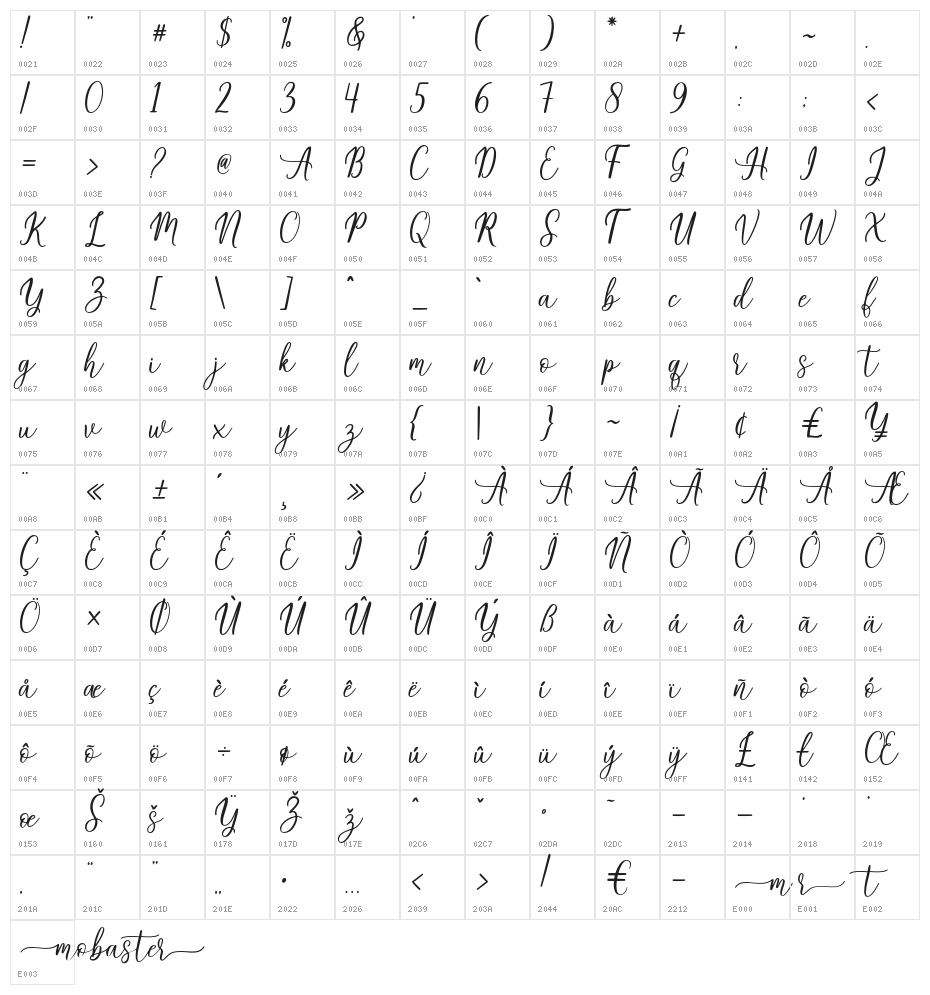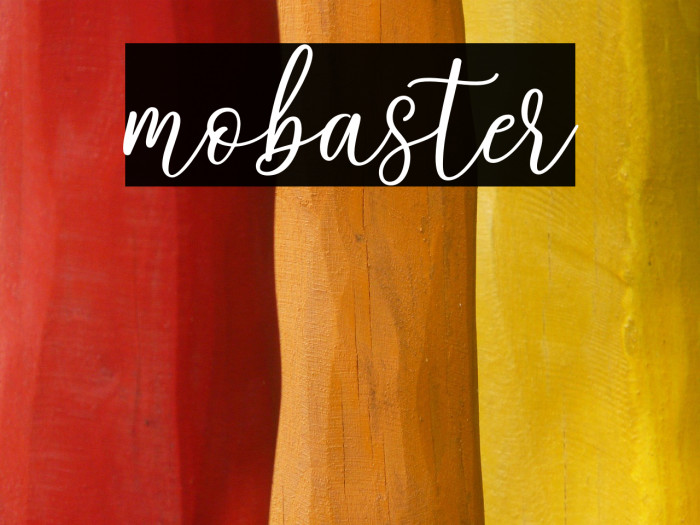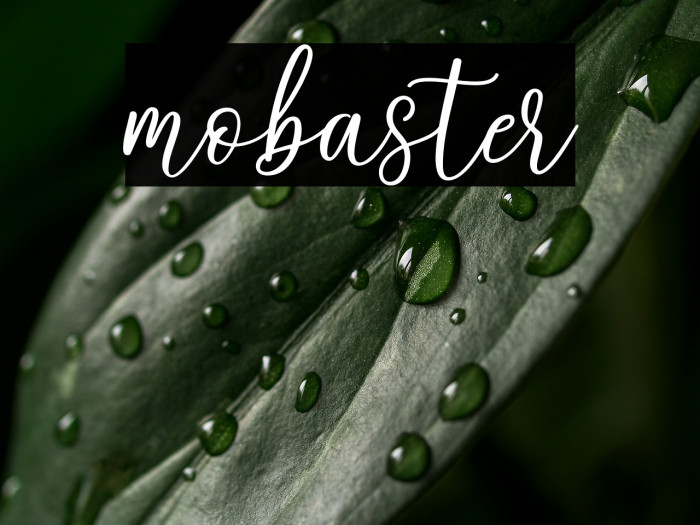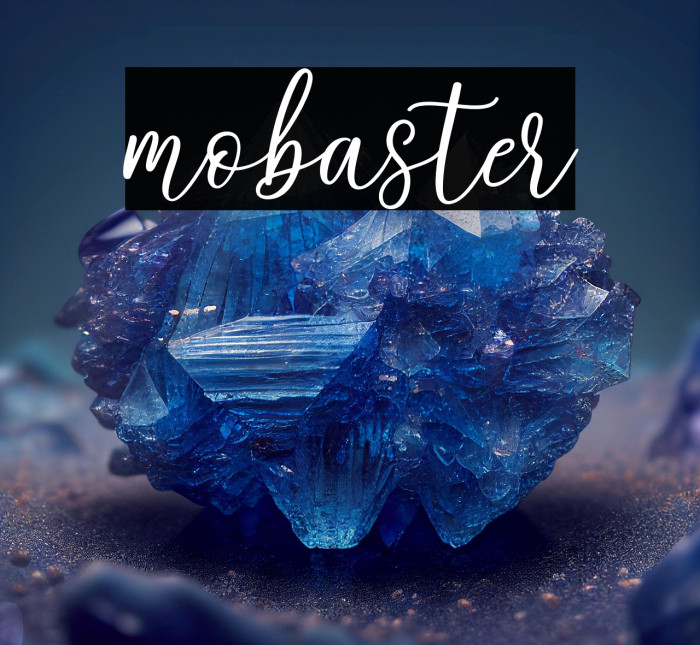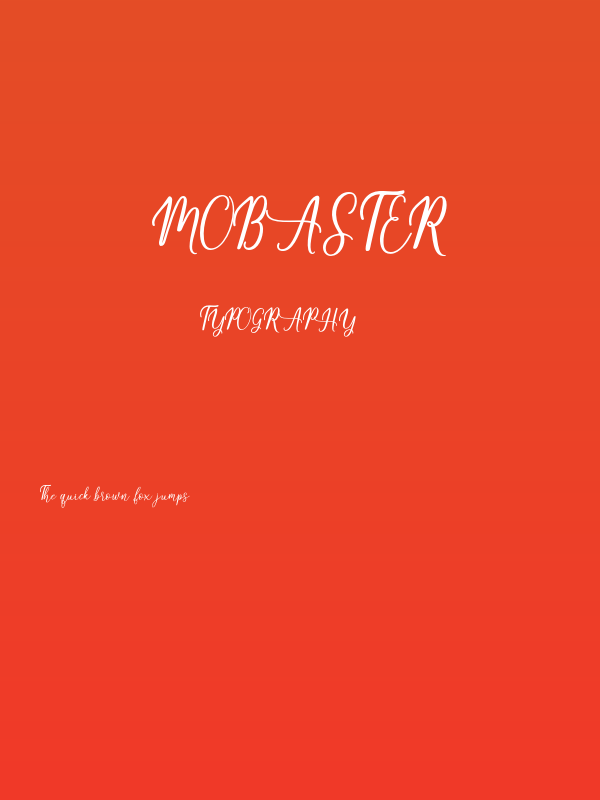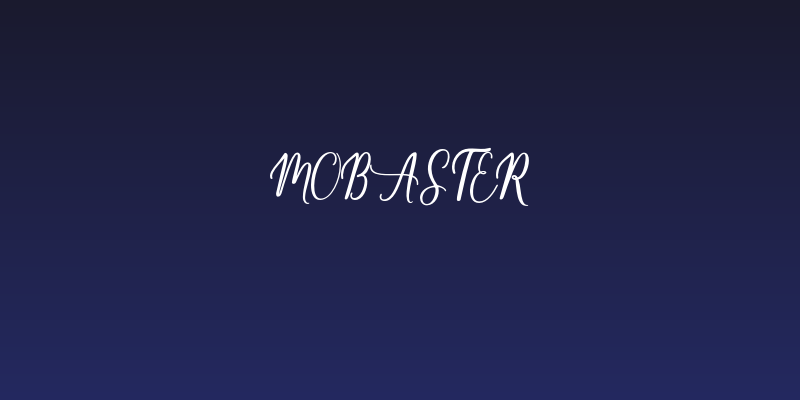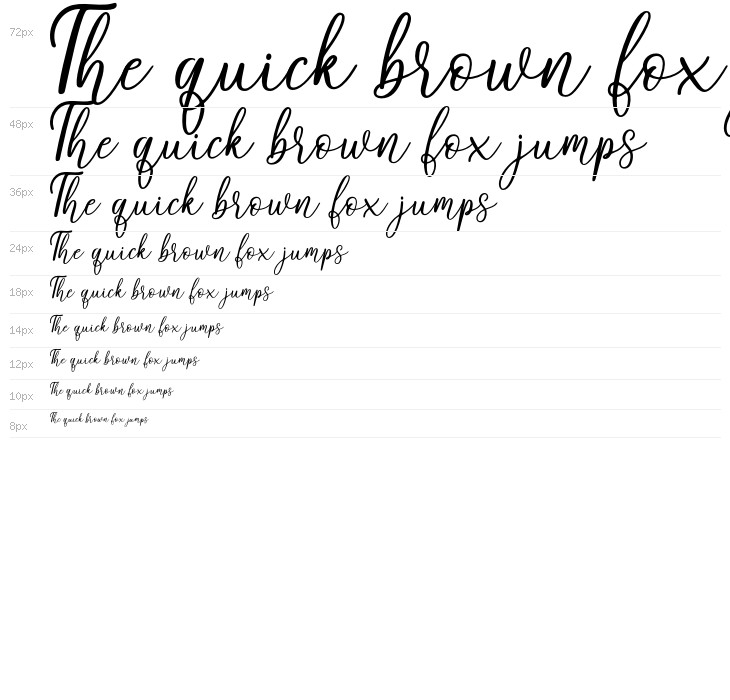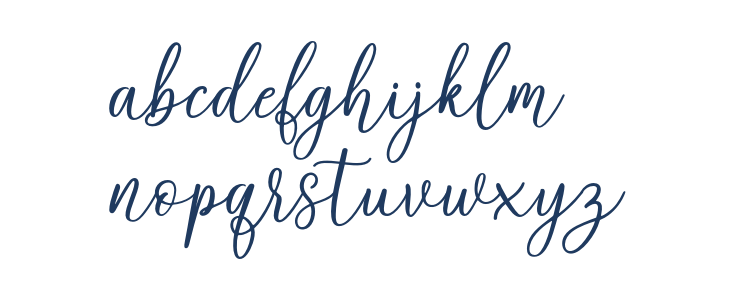
mobaster Font
mobaster Description
This elegant script font features flowing, cursive letters with a modern flair. The uppercase letters are characterized by their sweeping curves and loops, giving a sense of movement and grace. The lowercase letters maintain a consistent style, with smooth connections between each character, enhancing readability while preserving the decorative nature. The numerals are stylish yet clear, complementing the overall aesthetic. Special characters are thoughtfully designed to match the script's fluidity, making it versatile for various uses. The font's overall appearance is sophisticated and artistic, ideal for projects that require a touch of elegance.
Overall StyleModern
Use CaseLogos, Invitations, Decorative text
Proposed ProjectsIdeal for wedding invitations, branding, greeting cards, and elegant packaging designs.